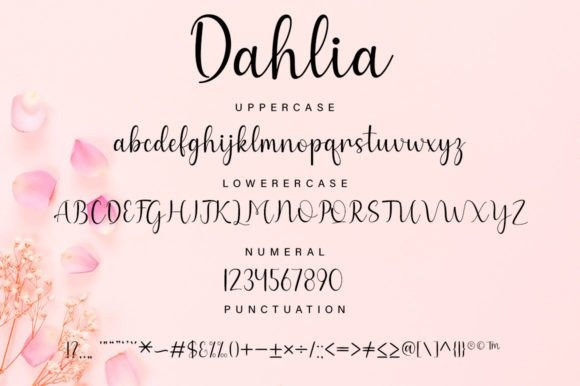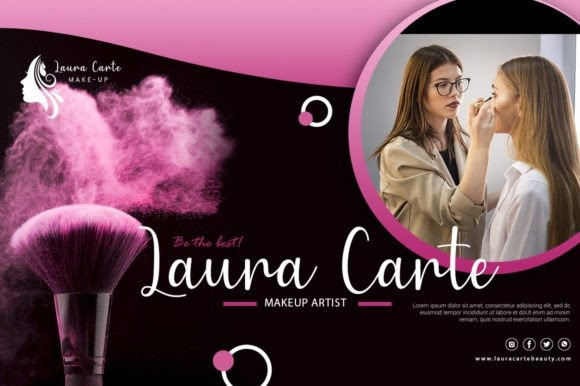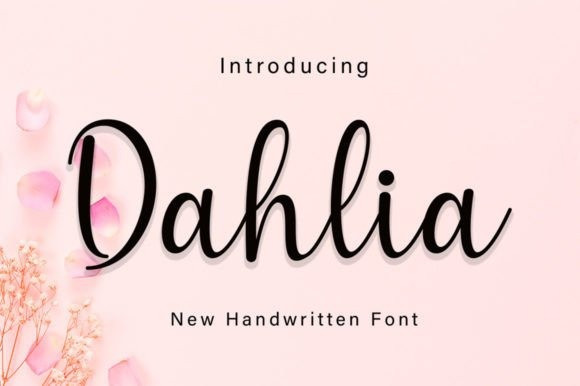
Dahlia Font
Dahlia Script Font is a lovely and timeless handwritten font. It is the best choice for creating eye catching logos, branding and quotes. Every letter has a unique and beautiful touch, which will make your design come alive!